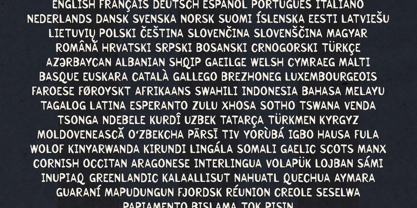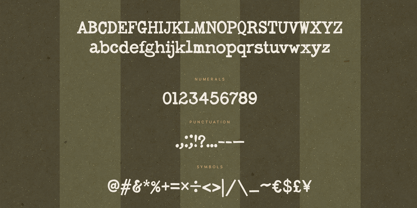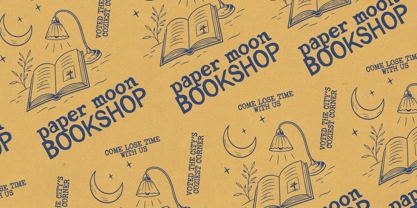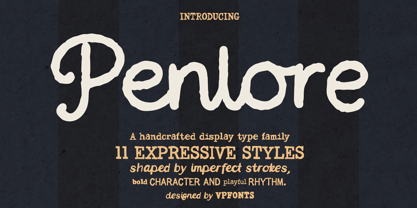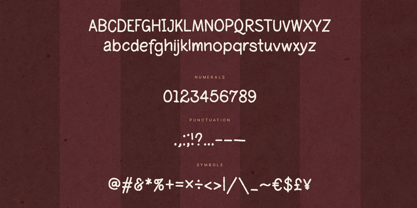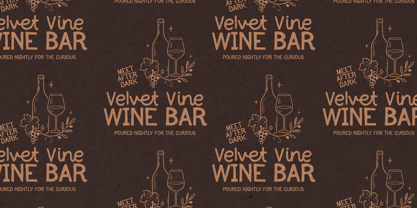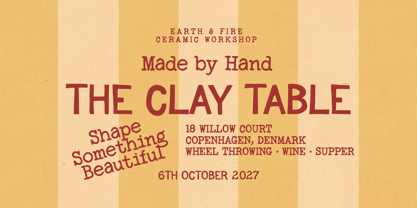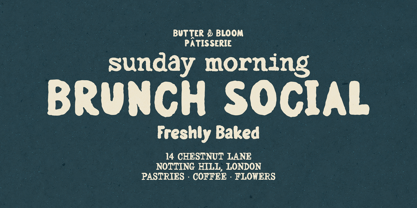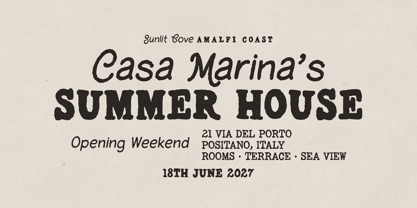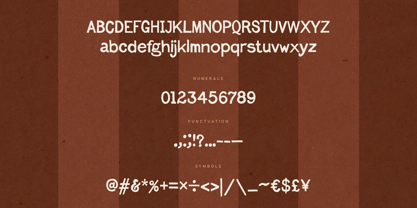
Penlore
The Penlore Font Family was designed by Vladimir Fedotov, Plamen Petrov and published by VP Creative Shop. Penlore contains 11 styles and family package options. More about this family
Penlore is a handcrafted display font family featuring 11 expressive styles, created to bring warmth, personality, and playful rhythm to every design. Built from imperfect, organic strokes, the family combines handwritten charm with bold display impact, giving you a versatile typographic toolkit for distinctive branding and creative layouts.
From characterful serif and slab styles to relaxed sans, script, scrawl, outline, and bold variations, Penlore makes it easy to mix contrasting letterforms while keeping a consistent visual identity. Use a single style for a strong headline or combine multiple styles to create layered, energetic typography.